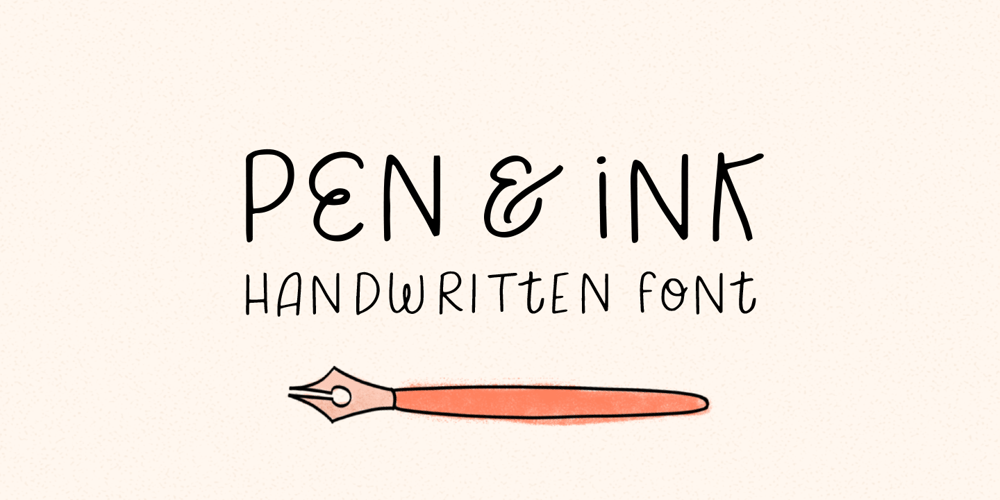
Pen And Ink Font Family was designed by Rachel Kick and published by Rachel Kick. Pen And Ink contains 2 styles and family package options. Pen & Ink is a quirky hand-drawn font. Inspired by notetaking and classroom doodles, this font has a friendly and approachable feel that perfectly compliments artwork and social media.Mix and match uppercase and lowercase letters throughout each word to get a truly hand-drawn feel. There are also 33 swash and icon extras.